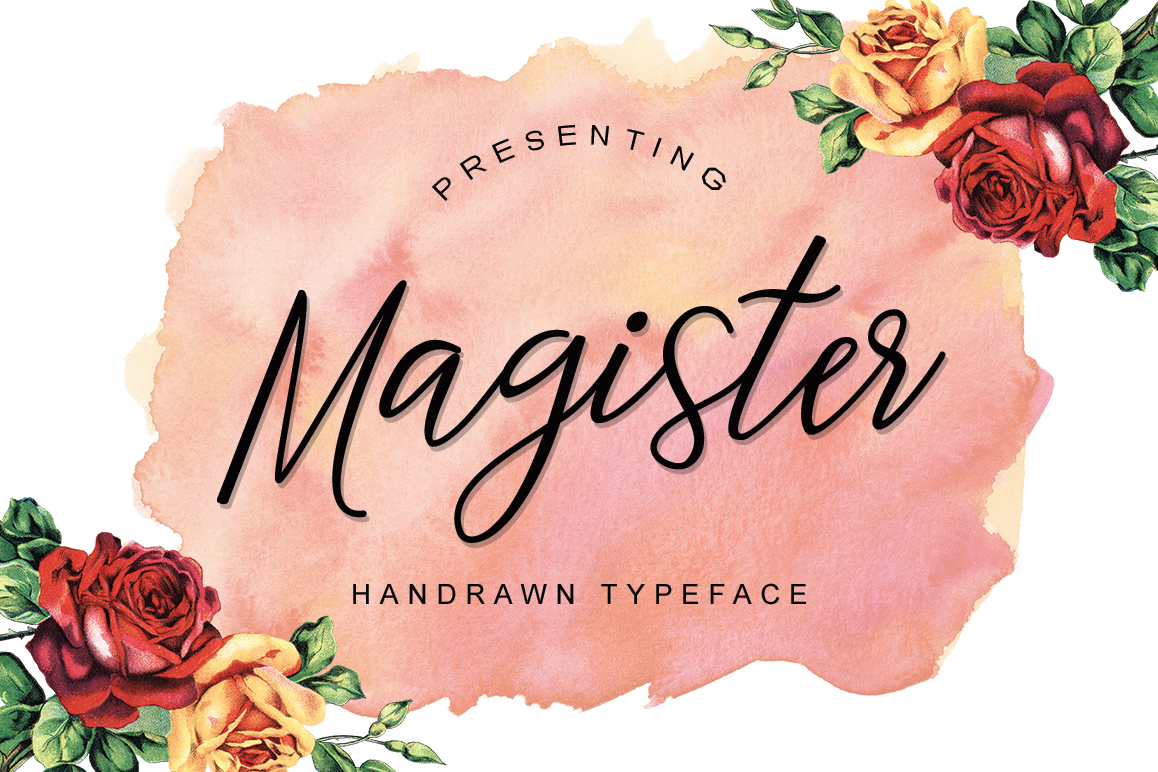
Magister Typeface
Magister-Regular
Magister Script is a handwriting script font which beautiful, stylish and charmed feeling. Create with care and add your project with bouncy feeling too. Magister Script is just what you've been looking for!
Use Magister Script on all of your projects to give beautiful and tasty taste. In precise would look great on, branding projects, logos, product packaging, posters, invitations, greeting cards, titles, blogs, everything that includes particular charm and you name it. ;)